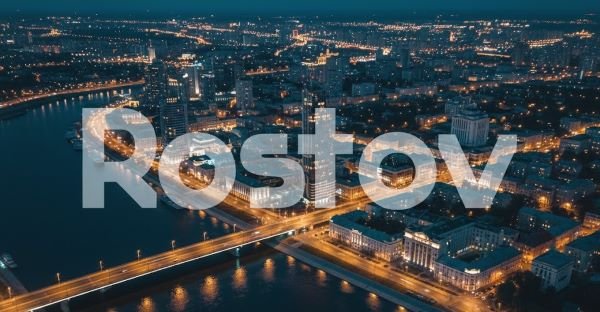
Rostov Font
Rostov Font is a strikingly simple yet sophisticated sans serif typeface crafted by Andy Usikov as a tribute to his hometown of Rostov-on-Don. This modern font showcases sleek geometric forms with subtle nuances that elevate any design project. Featuring a complete glyph set with uppercase characters and extensive language support, Rostov Font delivers exceptional versatility and functionality for contemporary branding, editorial layouts, and professional applications.
Font Style: Sans Serif
Category: Bold, Contemporary, Geometric, Grotesque, Modern, Strong, Urban